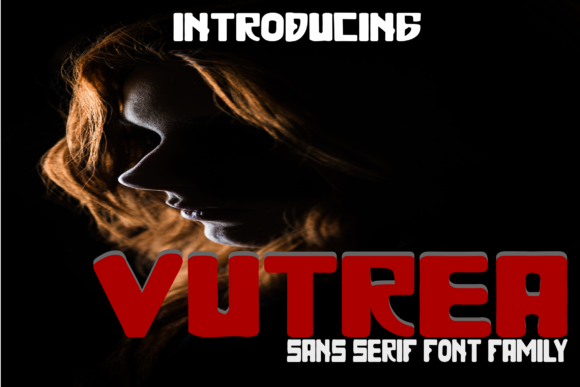
Introducing Vutrea, a typeface that embodies the spirit of graceful simplicity. Its sans serif structure exudes a contemporary elegance, effortlessly transforming your designs into captivating masterpieces.
Crafted by the talented WarejoW, Vutrea possesses a uniquely charming allure that will captivate your audience. Its clean lines and subtle curves lend an air of sophistication, while its modern vibe adds a touch of understated cool.
Whether you're a seasoned designer or just starting your creative journey, Vutrea is the font you've been waiting for. Its versatility knows no bounds, making it the perfect companion for a wide range of projects. From sleek logos and alluring posters to eye-catching websites and enchanting brand identities, Vutrea will elevate your creations to new heights.
But Vutrea is more than just a font; it's a key that unlocks your design potential. It empowers you to express your ideas with clarity and conviction, leaving a lasting impression on all who encounter your work.
So why settle for ordinary when you can have extraordinary? Embrace Vutrea today and embark on a creative adventure that will leave you inspired and your audience mesmerized.